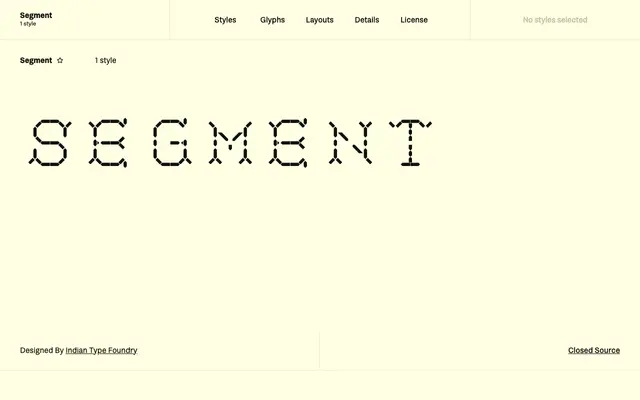
Segment
A caps-only, monospaced display face by Oslo-based designer Frode Helland, built entirely from discrete segments in the manner of LCD electronic displays but with unexpectedly old-fashioned serif detailing.
Every letterform is constructed from segments, yet the design departs from a purely utilitarian LCD aesthetic through the inclusion of serifs, a sweeping diagonal tail on the capital R, and a wavy stroke on the top of the 7. The font is caps-only and monospaced, with lowercase slots filled by uppercase duplicates, and includes over a dozen currency symbols alongside two OpenType Stylistic Sets offering alternate punctuation. Despite the late-twentieth-century technology it references, the overall character is eclectic and archaic rather than coldly digital.
Categorised as Display by the foundry; all letterforms are constructed from discrete segments mimicking LCD electronic display technology, with a monospaced, caps-only structure that places it firmly in the novelty display category.